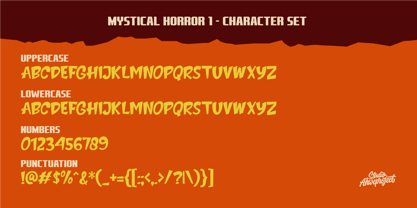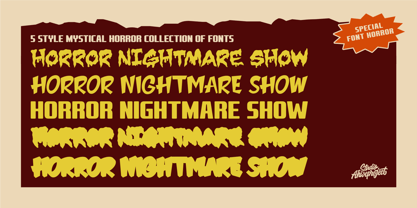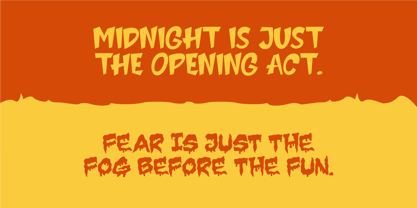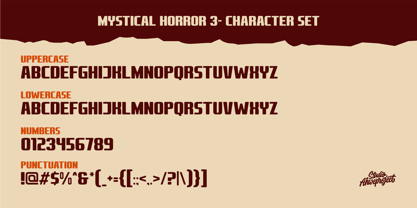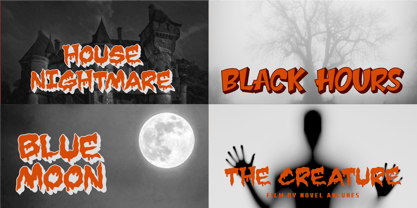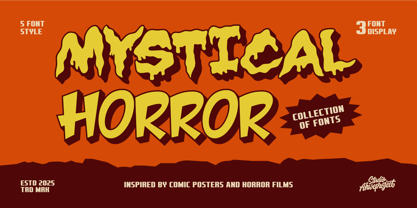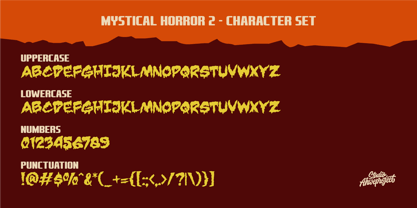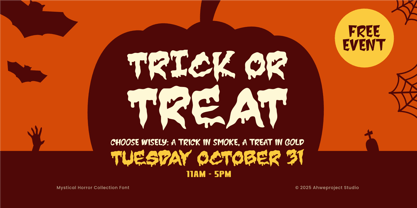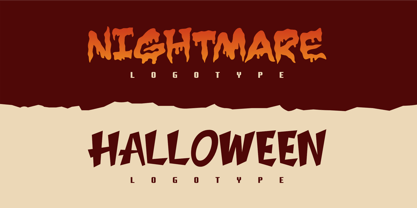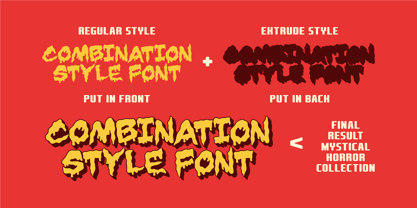
Mystical Horror Collection
The Mystical Horror Collection Font Family was designed by Dida Ahluddin and published by ahweproject. Mystical Horror Collection contains 5 styles and family package options. More about this family
Turn any headline into a scream-worthy hook with Mystical Horror, a 3-style display set inspired by classic comic posters and cult horror films. The mix of dripping slime, bold comic, and shadowed display gives you instant drama, strong readability, and scroll-stopping impact
- Uppercase & lowercase
- Numbers and punctuation
- Multilingual
- Alternates
- Ligatures
- PUA encoded
- Halloween posters & party flyers
- Movie/podcast covers & thumbnails
- Game titles, badges, stickers & merch
- Seasonal banners, social media promos, packaging
- Three contrasting styles for title, subhead, and accent
- Thick strokes, consistent rhythm, great for big sizes
- Pairs beautifully with outlines, shadows, and grunge textures
- Clean spacing and smooth curves for sharp, professional results